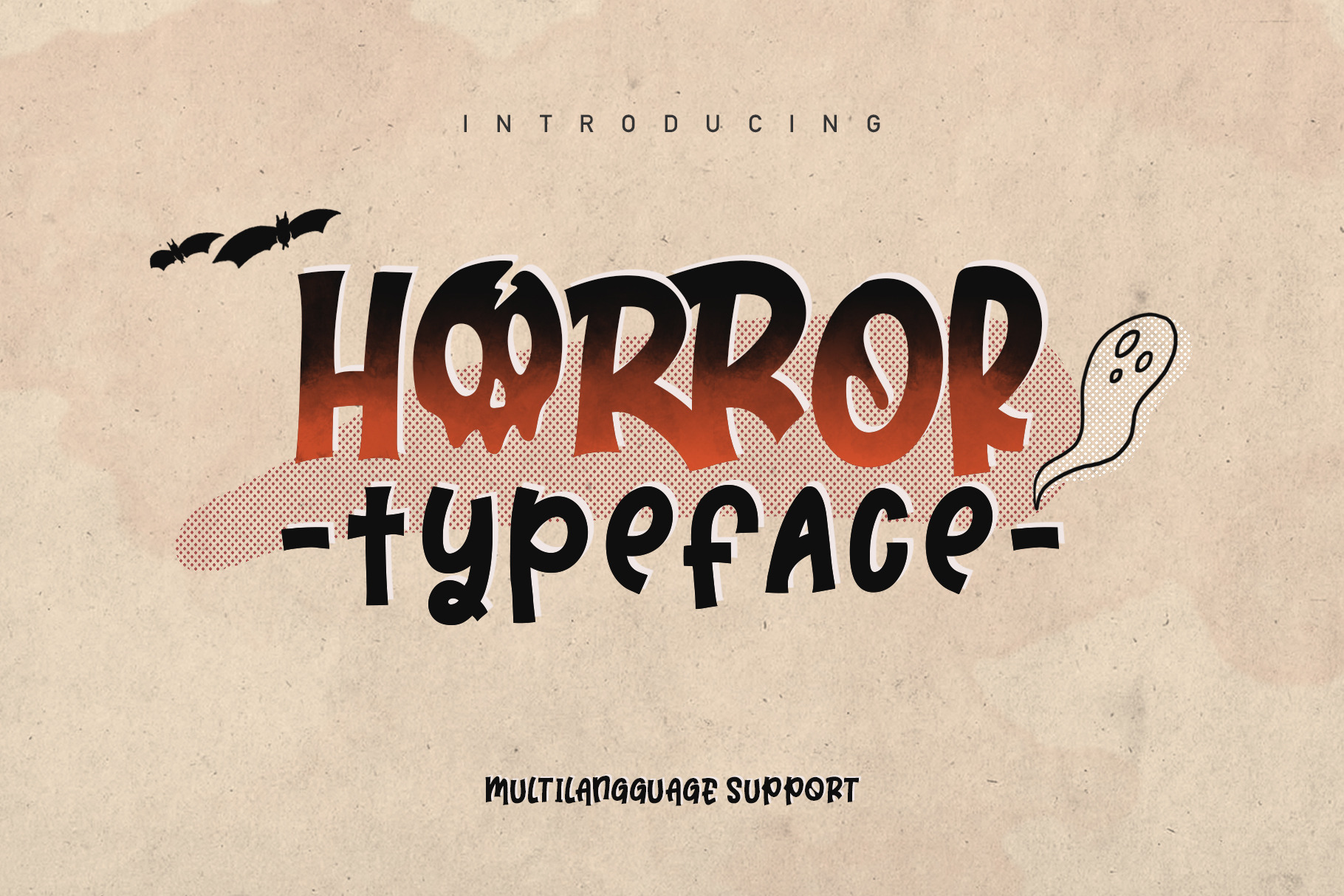
Horror Typeface
a HORROR Typeface is Display Font. Can make it easier to convey the message in your design. Use for awesome display, Logo, labeling, clothing, movie sceen, poster, movie title, gigs, album covers, logos, and much more.